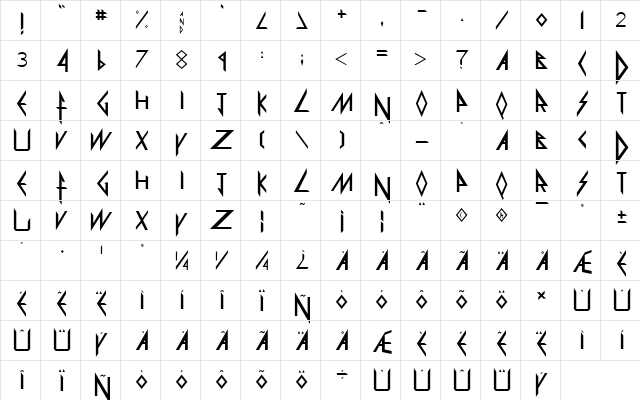
Def Leppard Regular
Design Context for Def Leppard Typeface
Def Leppard is a composed and adaptable typeface that performs quietly and consistently across a wide range of design contexts.